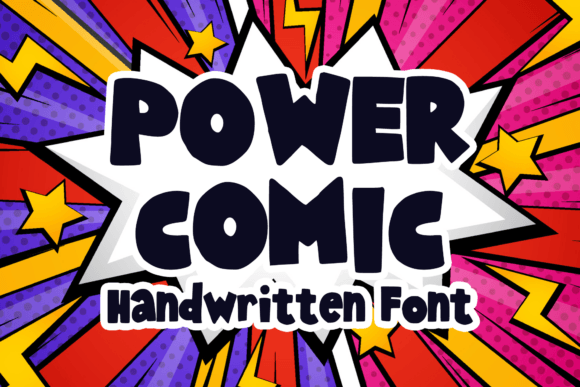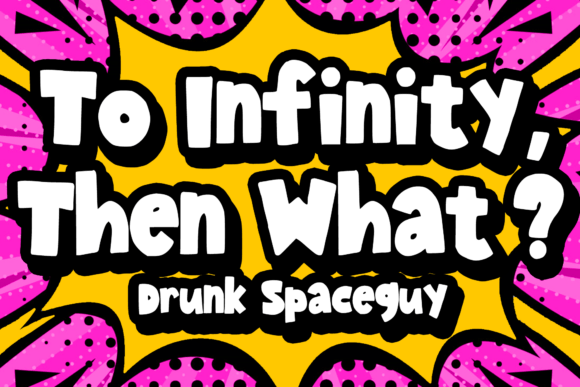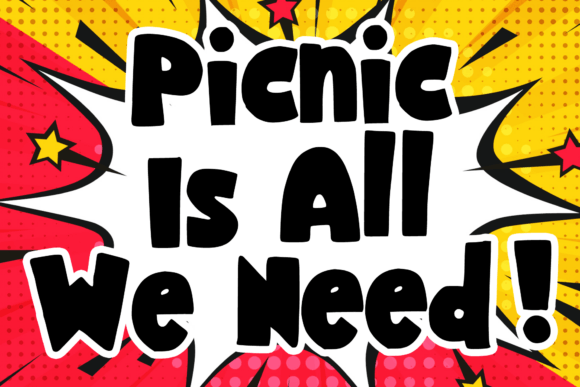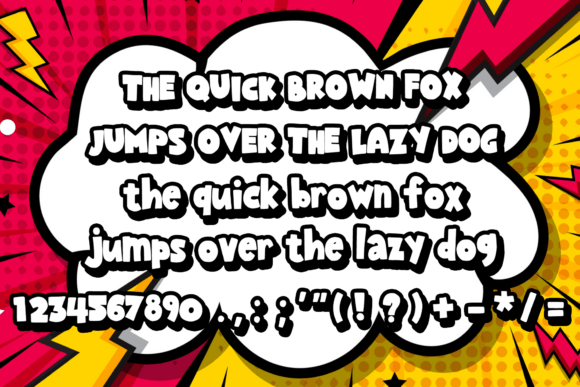
Power Comic Font: A Bold Handwritten Font for Eye-Catching Designs!
About the Power Comic Font
The Power Comic Font offers a perfect balance of form and function for your design needs. Power Comic is a bold fun handwritten comic font. It will elevate a wide range of design projects to the highest level. You can use this font for many design ideas such as stickers, t-shirt designs, amazing logo designs, magazine or book covers, comics, cartoon drawings, daily typing, and many more. This font will add a super cool touch to your designs!
Power Comic’s playful boldness makes it ideal for headlines, short texts on posters, and branding for youthful or energetic brands—think comic books, children’s products, or casual streetwear. It’s less suitable for body text or UI elements where readability over long stretches is crucial. Its informal nature might clash with sophisticated or corporate branding.
Pairing Power Comic effectively requires a contrast in style. A clean sans-serif like Open Sans could provide a grounded counterpoint, while a more geometric sans-serif like Futura would emphasize its bold lines. For a more whimsical approach, consider pairing with a playful script font.
The font projects a friendly, energetic personality, best suited for projects that demand attention and convey a sense of fun. Avoid using it where a professional or serious tone is required.
Power Comic Font Usage Examples